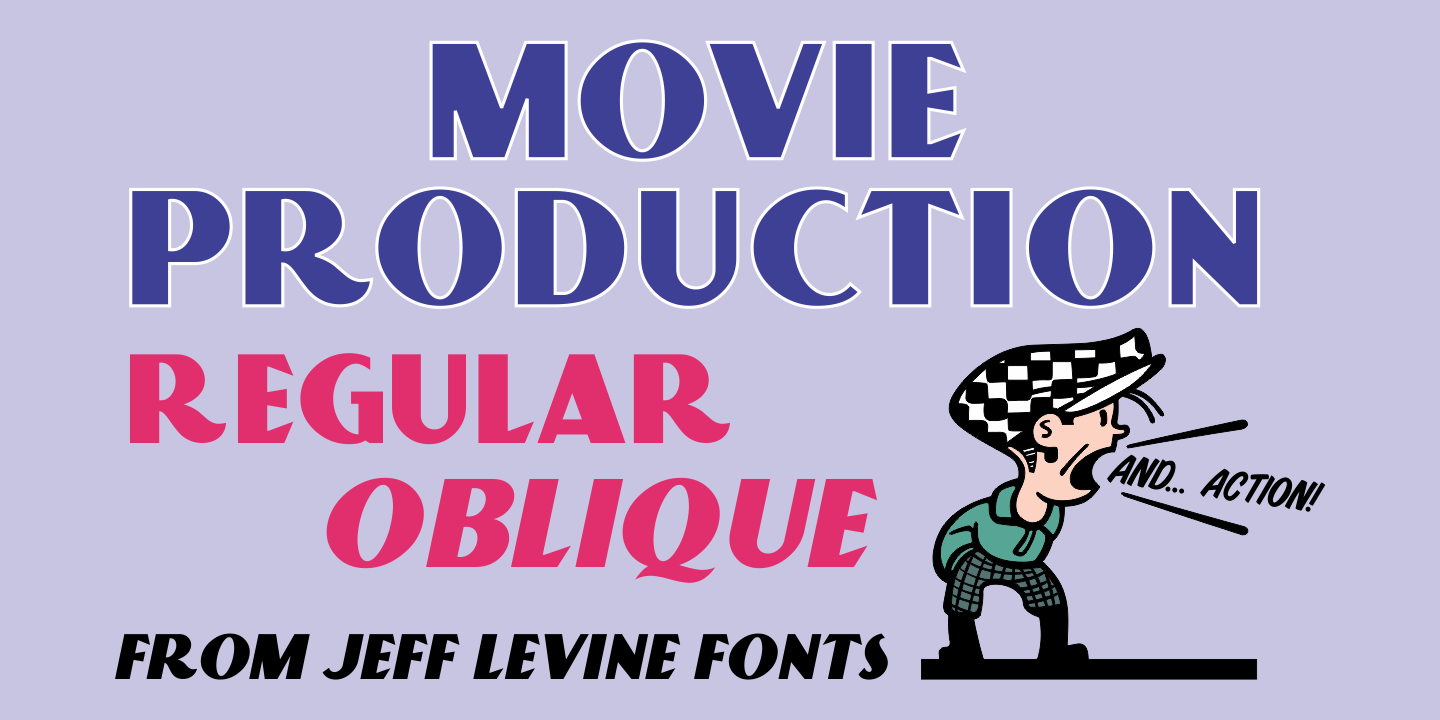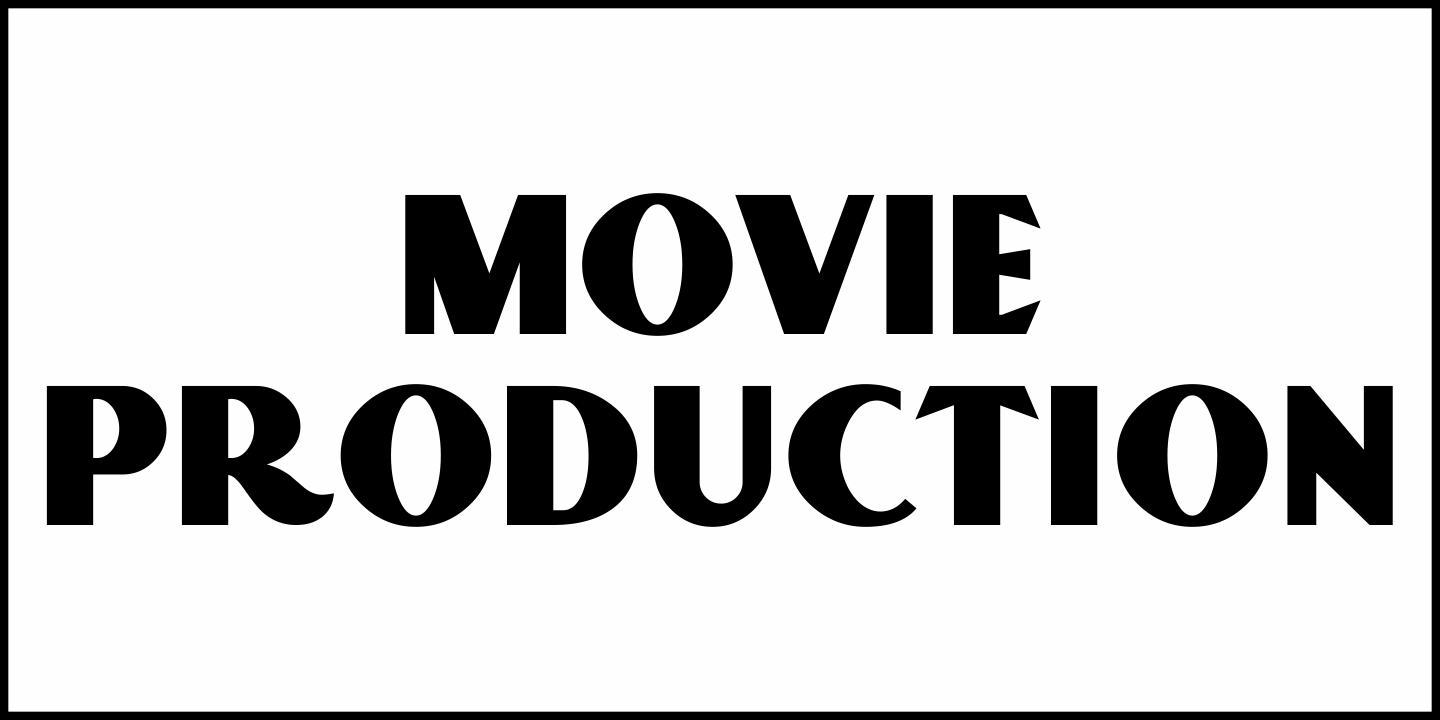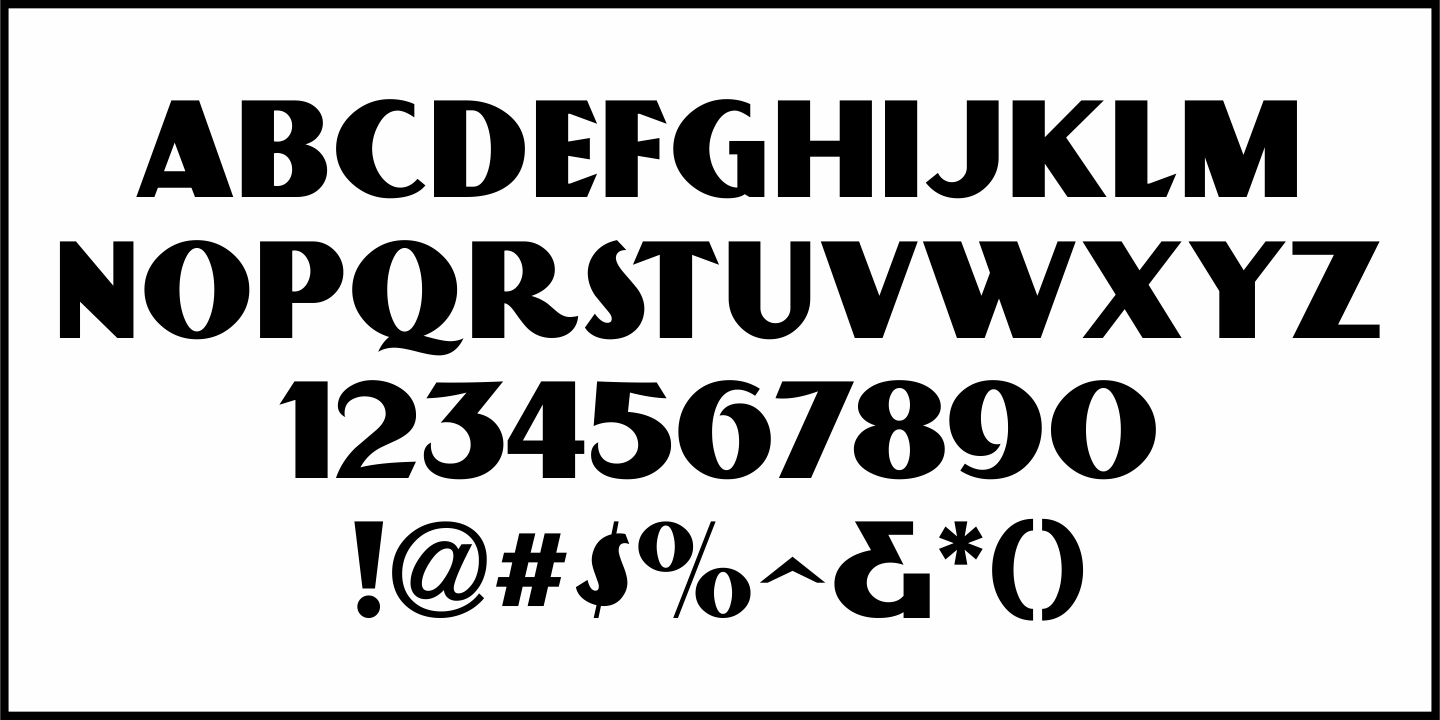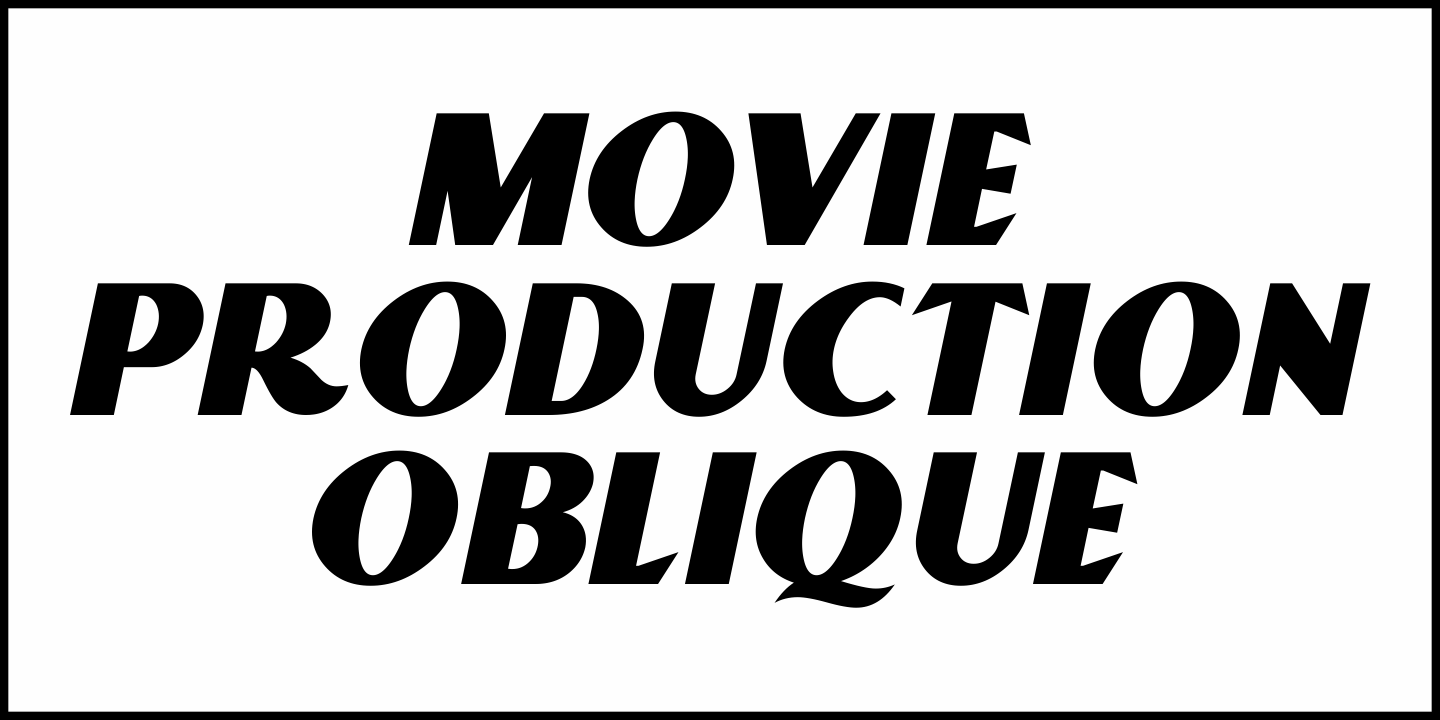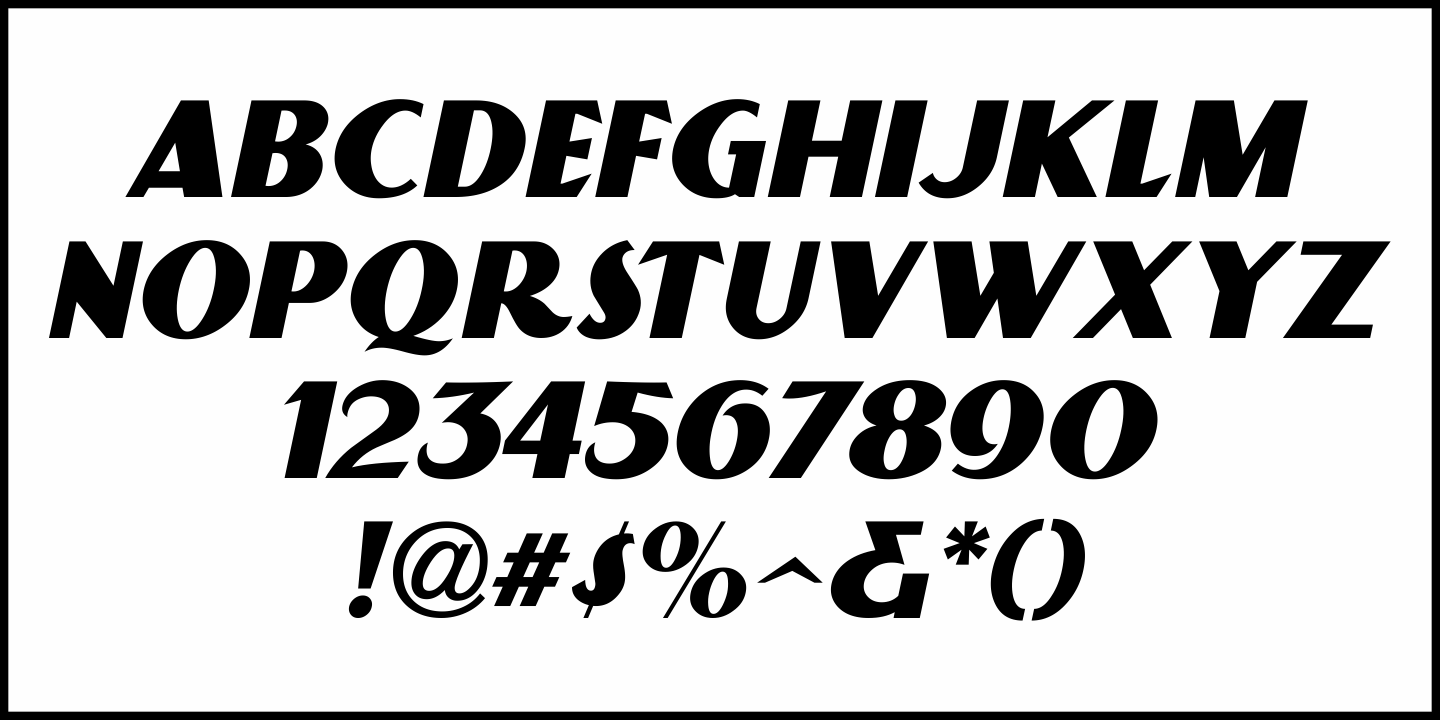
Movie Production
Inside the pages of the August, 1930 issue of 'The New Movie Magazine” is an ad for Warner Brothers-First National Pictures – hand lettered in a bold Art Deco sans.
This was the basis for Movie Production JNL, which is available in both regular and oblique versions.